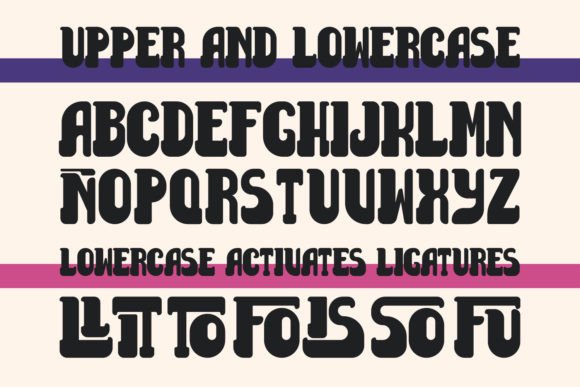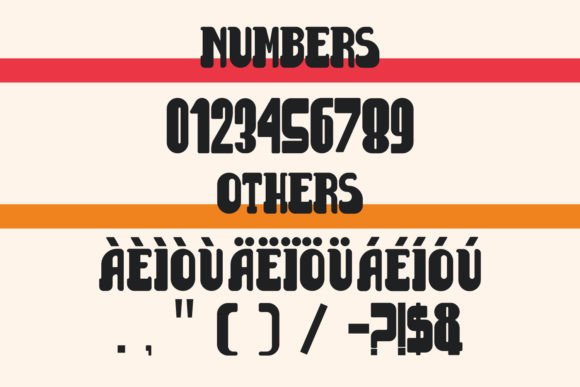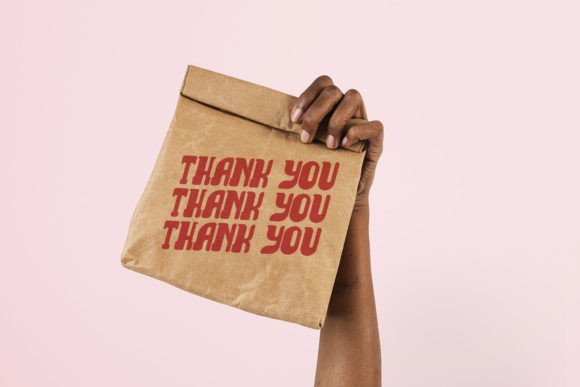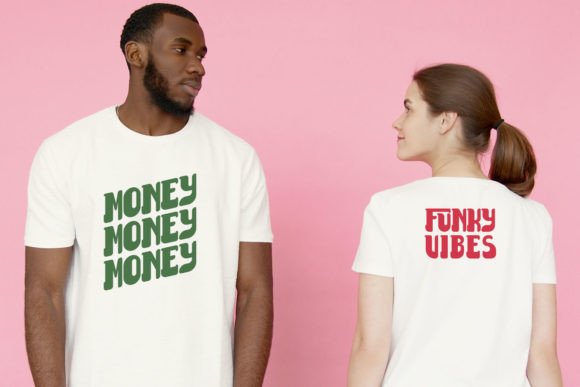
The Ultimate Design Game-Changer: Fun Bull Font
I’ll never forget the design project that had me stuck in a font rut. I was working on a branding campaign for a trendy new cafe, and I just couldn’t find the right font to capture their playful yet sophisticated vibe. That was until I stumbled upon Fun Bull, a modern take on retro font styles that’s been a total game-changer for my design workflow. In this article, I’ll share my honest review of Fun Bull, a practical guide on how to use it, and some expert tips on how to get the most out of this incredible font.
My Honest Review of Fun Bull
So, what makes Fun Bull so special? Here are the things I love:
- ✨ Retro charm with a modern twist: Fun Bull has a unique blend of vintage flair and contemporary style that’s perfect for a wide range of design projects.
- ✅ PUA encoded for easy access: With PUA encoding, you can easily access all the amazing glyphs and ligatures that make Fun Bull so versatile.
- 💥 Endless creative possibilities: Whether you’re designing a logo, brochure, or social media graphics, Fun Bull has the potential to elevate any creation.
Of course, no font is perfect, and here are a few small quirks to keep in mind:
- 🤔 Some characters may require manual kerning: While Fun Bull is generally well-spaced, you may need to adjust the kerning on certain characters to get the perfect look.
- ⚠️ Limited language support: Fun Bull is designed primarily for English and Western European languages, so you may encounter limitations if you need to support other languages.
The Backstory Behind Fun Bull
Fun Bull was designed with the goal of creating a modern, retro-inspired font that’s both fun and versatile. The designer drew inspiration from classic fonts of the 1970s and 80s, but with a fresh twist to make it suitable for contemporary design projects. The result is a font that’s equal parts playful and sophisticated, making it perfect for a wide range of creative applications.
| Font Name | Fun Bull Font |
| What is PUA encoding, and how does it benefit Fun Bull? | PUA (Private Use Area) encoding allows designers to access a wide range of glyphs and ligatures that are not available in standard fonts. In Fun Bull, PUA encoding makes it easy to access the font’s advanced typography features. |
| Is Fun Bull suitable for body text? | While Fun Bull is a beautiful font, it’s best suited for headlines, titles, and short paragraphs. For body text, you may want to choose a font with better readability. |